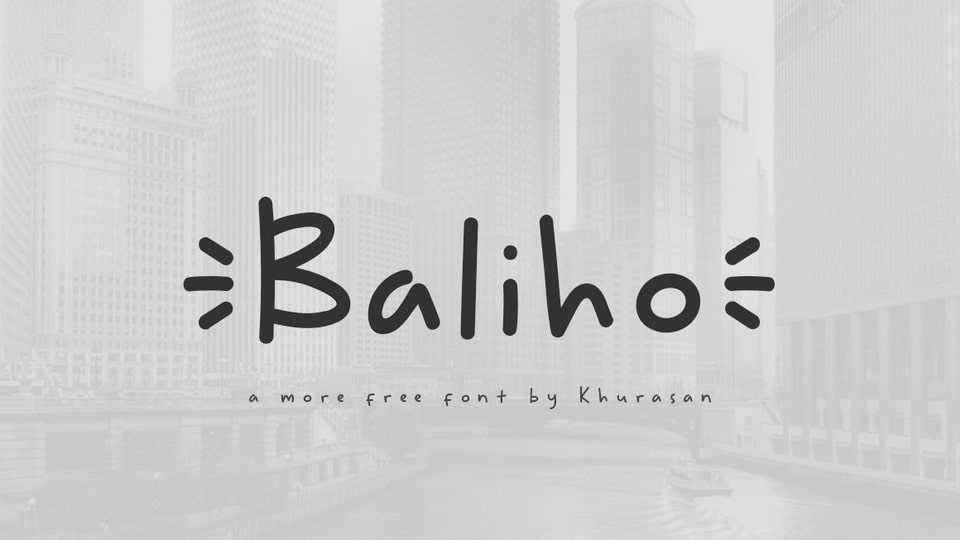
Download Baliho font, a simple and cute hand drawn typeface. Baliho font is perfect for writing out quotes for Instagram posts, wall art or greeting cards, crafts, packaging or branding.